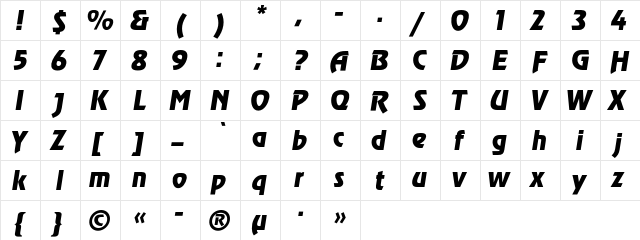
AGZeppelinC Italic
Design Context for AGZeppelinC Typeface
AGZeppelinC is a composed and adaptable typeface that performs quietly and consistently across a wide range of design contexts. Its italic angle brings a sense of urgency and motion to the letterforms.
Pro Tip: Try AGZeppelinC for annotation and caption copy alongside an upright companion — the contrast in angle creates a dynamic but ordered typographic system.